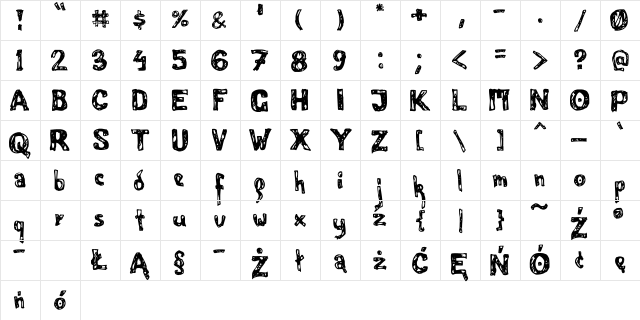
q Regular
Foundry: High-Logic
Designer: High-Logic - Erwin Denissen
Design Context for q
q is a composed and adaptable typeface that performs quietly and consistently across a wide range of design contexts.